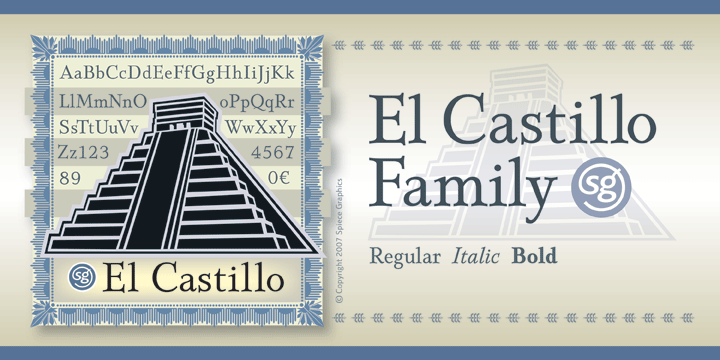
El Castillo SG Font is perfect for luxury branding, editorial layouts, posters, and high-end packaging. Its ornate, serif design excels in book covers, event invitations, and sophisticated website typography.
Why is El Castillo SG Font exciting? Its intricate, regal aesthetic combines classic sophistication with a bold, modern edge, making your designs visually striking.
The El Castillo SG Font family includes Regular, Bold, Italic, and Decorative variants, providing versatility for diverse creative needs.
Elevate your projects with El Castillo SG Font Free Download today. This typeface offers a refined, majestic look, ideal for creating impactful visuals. Whether for print or digital, El Castillo SG Font ensures your work stands out with elegance and authority. Its detailed letterforms and balanced structure make it a favorite for designers aiming for a luxurious, timeless style. Download El Castillo SG Font Free Download now to explore its potential and enhance your creative vision.